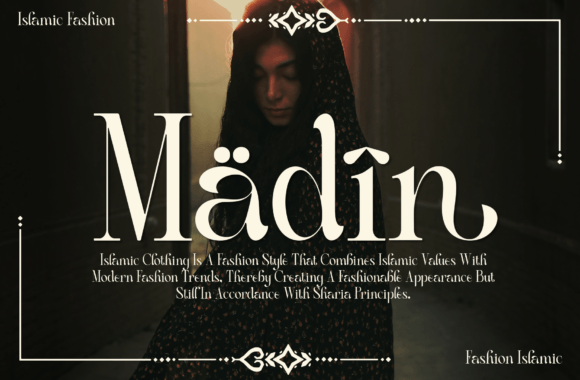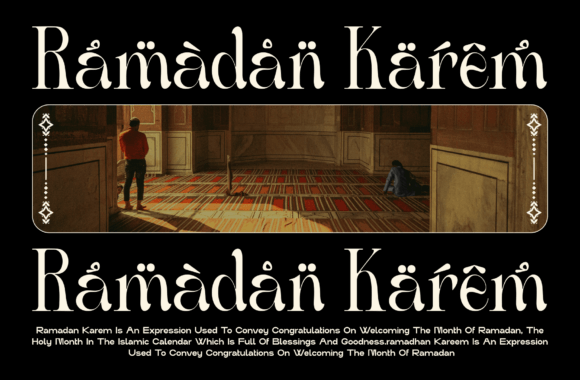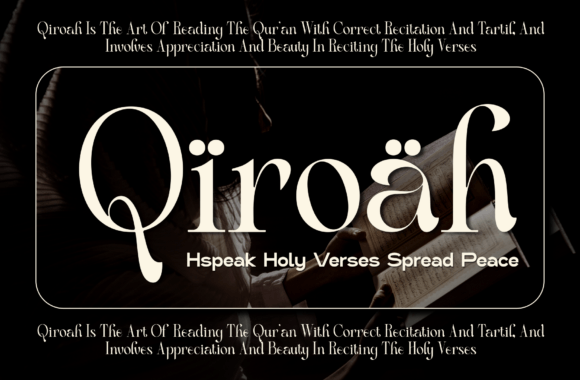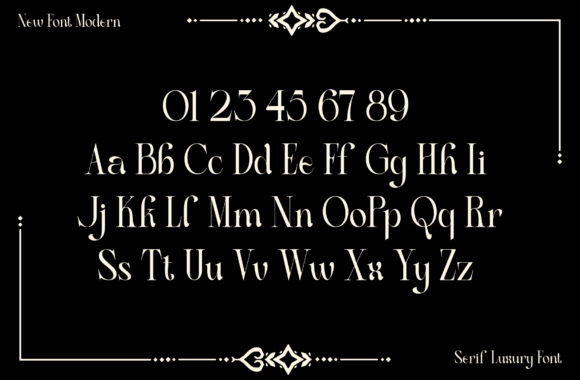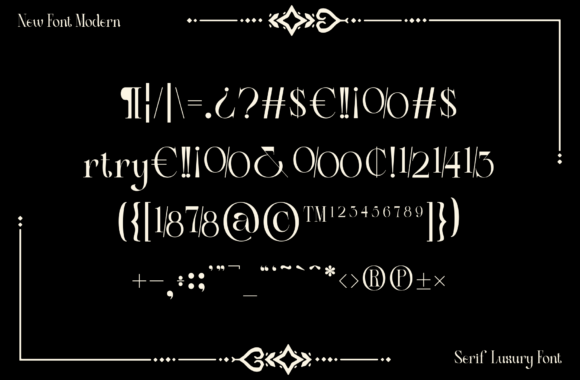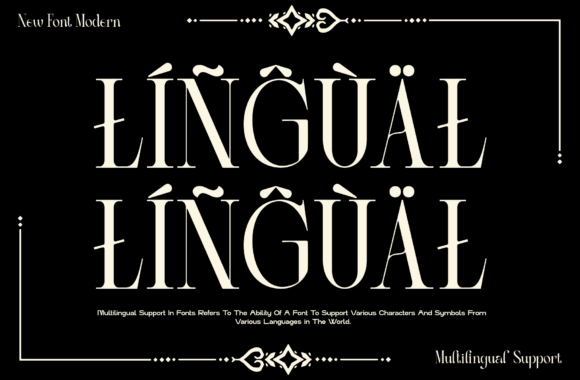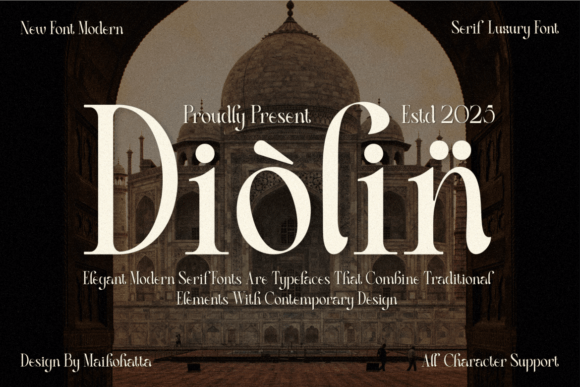
Discover the Elegance of Diolin Font: A Modern Serif Style for Designers and Crafters
In the world of typography, fonts play a crucial role in conveying messages, expressing emotions, and creating visual identities. For designers and crafters, finding the perfect font can be a daunting task, especially when it comes to balancing aesthetics and readability. This is where the Diolin Font comes in – a modern serif style that has been gaining attention for its unique characteristics and versatility. In this article, we’ll dive into the features and benefits of Diolin Font, and explore why it’s becoming a favorite among designers and crafters.
What is Diolin Font?
Diolin Font is a modern serif typeface that boasts a balanced proportion of stroke thickness and fineness, creating attractive and easy-to-read visuals. Its distinctive feature lies in the bold distinction between thick and thin lines, providing a touch that is understated yet still stands out. This elegant font is perfect for designers and crafters looking for a sophisticated and refined look that can elevate their projects.
Key Features of Diolin Font
- Balanced Stroke Thickness and Fineness: Diolin Font features a harmonious balance between thick and thin lines, creating a visually appealing contrast that makes it easy to read.
- Modern Serif Style: Diolin’s serif style is characterized by a clean and minimalist approach, making it perfect for modern designs that require a touch of elegance.
- Bold Distinction between Thick and Thin Lines: The font’s bold contrast between thick and thin lines adds a level of sophistication and refinement, making it ideal for high-end designs.
- Easy to Read: Despite its elegant appearance, Diolin Font remains highly legible, making it suitable for body text, headings, and titles.
Benefits of Using Diolin Font
So, why should designers and crafters choose Diolin Font for their projects? Here are some benefits that make it an attractive option:
- Versatility: Diolin Font can be used in a wide range of applications, from print materials like brochures and posters to digital platforms like websites and social media.
- Elegance and Sophistication: The font’s modern serif style and bold contrast between thick and thin lines add a touch of elegance and sophistication to any design.
- Improved Readability: Diolin Font’s balanced stroke thickness and fineness make it easy to read, even at smaller font sizes.
- Unique and Memorable: The font’s distinctive features make it stand out from more traditional serif fonts, allowing designers and crafters to create unique and memorable designs.
How to Use Diolin Font in Your Designs
Now that we’ve explored the features and benefits of Diolin Font, let’s discuss how to incorporate it into your designs:
- Pair it with Other Fonts: Diolin Font pairs well with sans-serif fonts, script fonts, and other serif fonts, making it easy to create harmonious font combinations.
- Experiment with Font Sizes: Diolin Font remains legible at various font sizes, making it suitable for body text, headings, and titles.
- Play with Colors: The font’s elegant appearance makes it suitable for a wide range of colors and design schemes.
In conclusion, Diolin Font is a modern serif style that offers a unique blend of elegance, sophistication, and readability. Its balanced proportion of stroke thickness and fineness, bold distinction between thick and thin lines, and versatility make it an attractive option for designers and crafters. Whether you’re working on a print project, digital platform, or craft design, Diolin Font is definitely worth considering. So, go ahead and explore the world of Diolin Font – you might just find the perfect fit for your next design project!